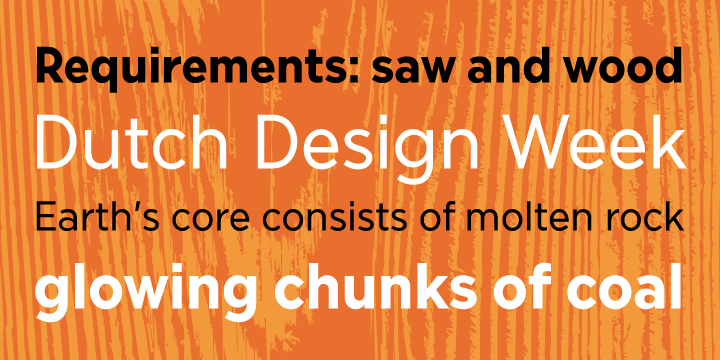
Phi Font is perfect for mathematical publications, scientific research materials, academic presentations, architectural projects, design theory documents, golden ratio studies, mathematical branding, and precise analytical typography.
What makes Phi Font exciting is its mathematical precision character that embodies golden ratio principles and geometric harmony through proportionally balanced letterforms and mathematical sophistication. This refined typeface features mathematical construction, geometric details, and analytical personality that captures the essence of mathematical beauty and proportional perfection, making it ideal for projects seeking to communicate precision, mathematical elegance, and geometric harmony with authentic mathematical appeal and analytical sophistication.
The Phi Font family includes Light, Regular, Medium, and Bold weights, each maintaining the characteristic mathematical precision and geometric harmony that define this distinctive typeface's analytical personality and mathematical sophistication.
Phi Font Free Download offers designers access to a typeface that perfectly captures the essence of mathematical beauty and geometric precision. This analytical font brings authentic mathematical aesthetics to contemporary projects, making it essential for research institutions, architectural firms, and mathematical organizations targeting audiences engaged in precise analytical work and geometric design. The font's mathematical construction and geometric details ensure immediate recognition of precision and harmony while its distinctive character creates intellectual connections among individuals appreciating mathematical beauty and geometric perfection. Whether designing mathematical research publications, architectural documentation, or analytical brand communications, this font delivers the mathematical authenticity and geometric sophistication that analytical audiences expect. Its mathematical foundation and geometric symbolism make it indispensable for projects celebrating mathematical beauty, geometric harmony, and the elegant precision of mathematical principles, ensuring communications resonate with audiences who value the mathematical wisdom, geometric perfection, and analytical precision that define authentic mathematical excellence and geometric design across diverse scientific and architectural applications.